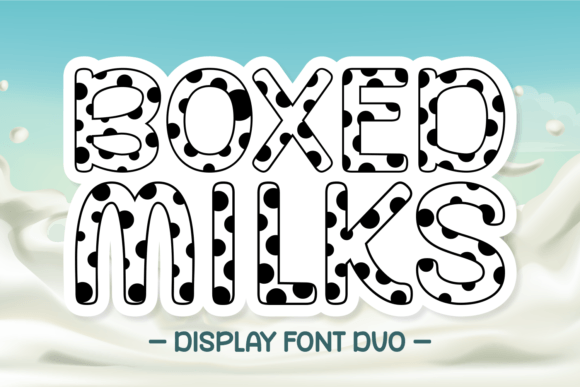
Say hello to Boxed Milks, the most adorable cow print font that will transform your designs into instant favorites!
Picture this: a charming nursery with walls adorned with Boxed Milks-inspired prints, each letter a playful polka-dotted delight. Onesies adorned with this adorable font will make your little one the star of every cuddle session. And stickers? They'll add a touch of whimsy to any scrapbook or gift tag.
Boxed Milks isn't just about aesthetics; it's a font that evokes a sense of nostalgia and warmth. It's the perfect choice for creating designs that capture the innocence and joy of childhood. So why settle for ordinary when you can have Boxed Milks, the font that will make your creations simply irresistible?